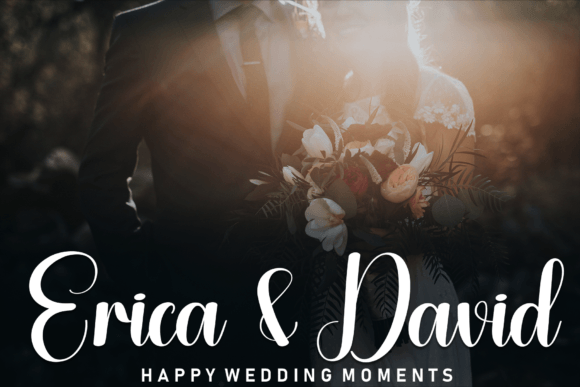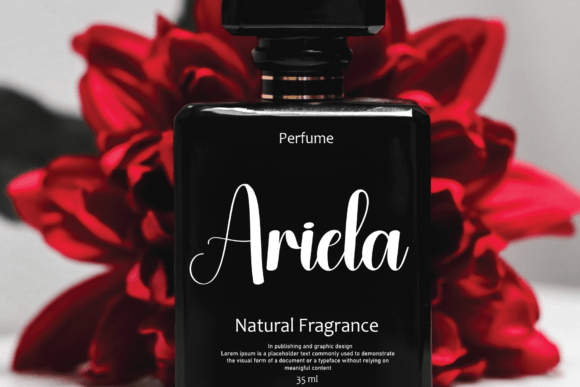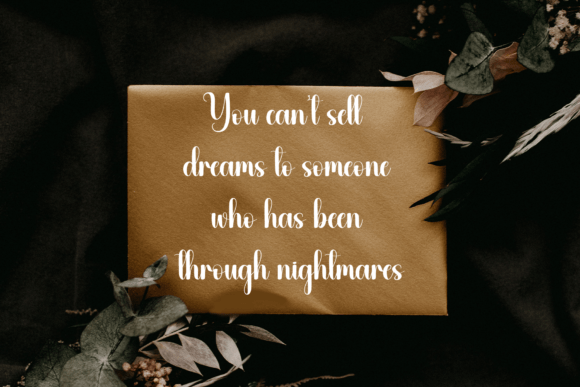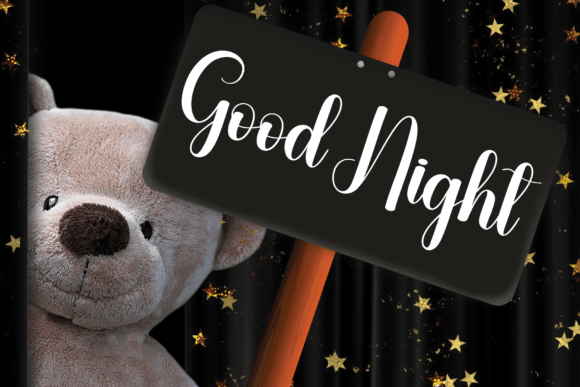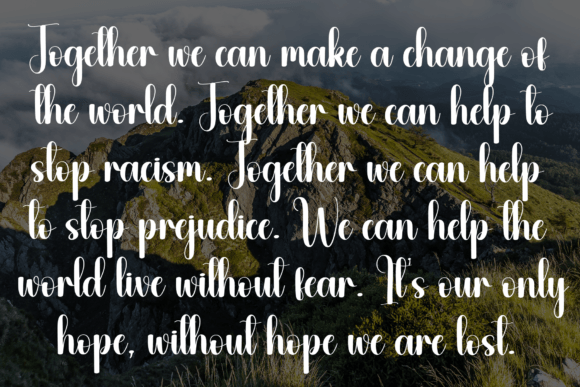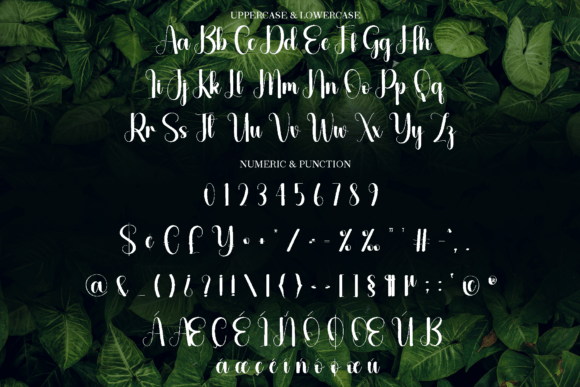
Introducing Greenleaf Font: The Sweet and Friendly Handwritten Font for Your Design Needs
Are you looking for a font that can add a personal touch to your designs? Do you want to create beautiful wedding invitations, greeting cards, or other creative projects that exude warmth and friendliness? Look no further than Greenleaf Font, a lovely handwritten font that is sure to become your go-to choice for all your design needs.
What is Greenleaf Font?
Greenleaf Font is a sweet and friendly handwritten font that is perfect for adding a touch of elegance and sophistication to your designs. With its fresh and casual feel, this font is ideal for creating beautiful wedding invitations, cards, and other design projects that require a personal touch. Whether you’re a designer, crafter, or DIY enthusiast, Greenleaf Font is a versatile and easy-to-use font that can help you create stunning designs in no time.
Key Features of Greenleaf Font
So, what makes Greenleaf Font so special? Here are some of its key features:
• Sweet and Friendly Design: Greenleaf Font has a warm and inviting design that is perfect for creating designs that require a personal touch.
• Handwritten Style: This font has a beautiful handwritten style that gives it a unique and authentic feel.
• Fresh and Casual: Greenleaf Font has a fresh and casual feel that makes it perfect for creating designs that are modern and trendy.
• Easy to Read: This font is easy to read, making it perfect for creating designs that require a clear and concise message.
• Versatile: Greenleaf Font is a versatile font that can be used for a wide range of design projects, from wedding invitations to greeting cards and more.
Uses of Greenleaf Font
Greenleaf Font is a versatile font that can be used for a wide range of design projects. Here are some of the most popular uses of this font:
• Wedding Invitations: Greenleaf Font is perfect for creating beautiful wedding invitations that exude elegance and sophistication.
• Greeting Cards: This font is ideal for creating greeting cards for special occasions such as birthdays, anniversaries, and holidays.
• DIY Projects: Greenleaf Font is perfect for DIY enthusiasts who want to add a personal touch to their projects.
• Graphic Design: This font can be used for a wide range of graphic design projects, from brochures to posters and more.
Tips for Using Greenleaf Font
Here are some tips for using Greenleaf Font in your designs:
• Pair it with Other Fonts: Greenleaf Font can be paired with other fonts to create a unique and interesting design.
• Use it for Headings and Titles: This font is perfect for creating headings and titles that require a personal touch.
• Experiment with Colors: Greenleaf Font can be used with a wide range of colors to create a unique and eye-catching design.
Font Name Greenleaf Font
In conclusion, Greenleaf Font is a sweet and friendly handwritten font that is perfect for adding a personal touch to your designs. With its fresh and casual feel, this font is ideal for creating beautiful wedding invitations, cards, and other design projects that require a lovely touch. Whether you’re a designer, crafter, or DIY enthusiast, Greenleaf Font is a versatile and easy-to-use font that can help you create stunning designs in no time.